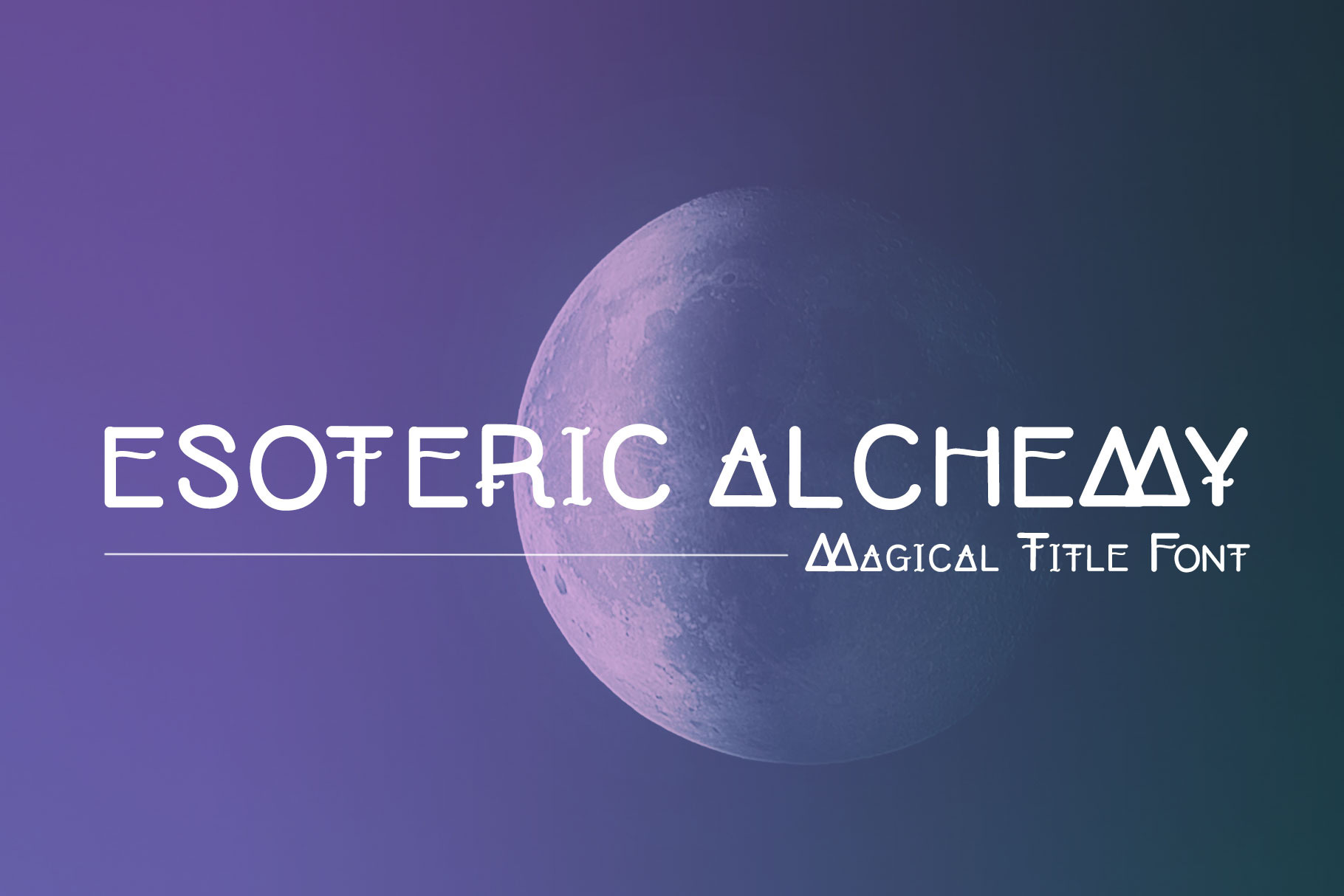
Esoteric Alchemy Font
The Esoteric Alchemy Font was created with the idea of using alchemy symbols as letters. This magical font would be great for logos, event titles, social media posts, or even merchandise. Capital letters, lowercase letters, numbers, punctuation and multilingual support are included.